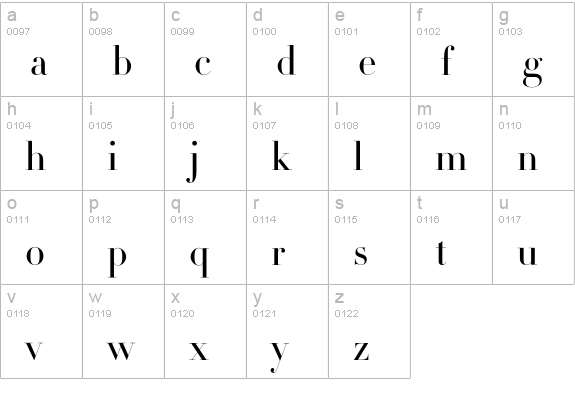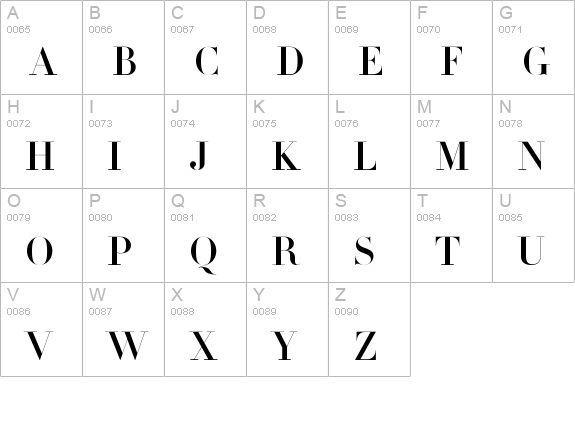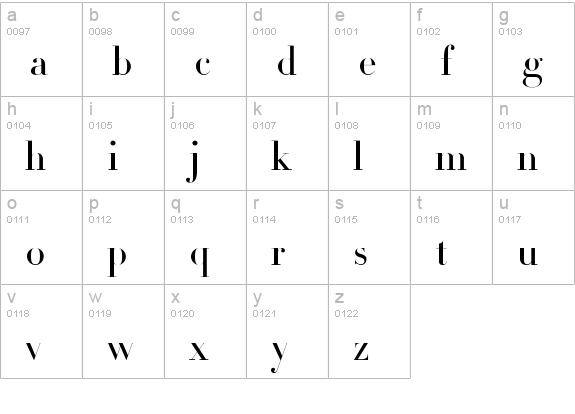
Didot-HTF-M42-Medium Font Details
Didot-HTF-M42-Medium is a balanced, medium-weight variant in the Didot typeface family \xE2\x80\x94 well suited to sub-headlines, navigation, and balanced editorial work.
The Didot-HTF-M42-Medium font is a timeless and elegant typeface that exudes sophistication and style. Its delicate serifs and high contrast create a sense of refinement and classic beauty. Perfect for luxury brands, editorial design, and high-end projects, this font effortlessly communicates a sense of prestige and exclusivity. What makes this font even more appealing is that it is available for free download at FontsMarket.com. Now you can add a touch of luxury to your designs without breaking the bank. Don't miss out on the opportunity to elevate your projects with the exquisite Didot-HTF-M42-Medium font, now easily accessible for free at FontsMarket.com.